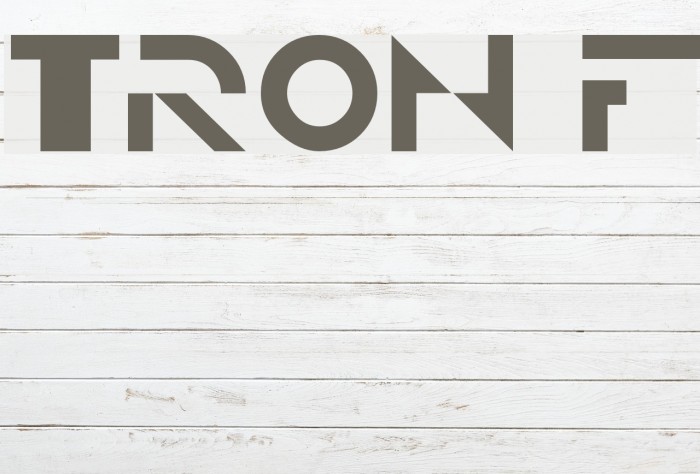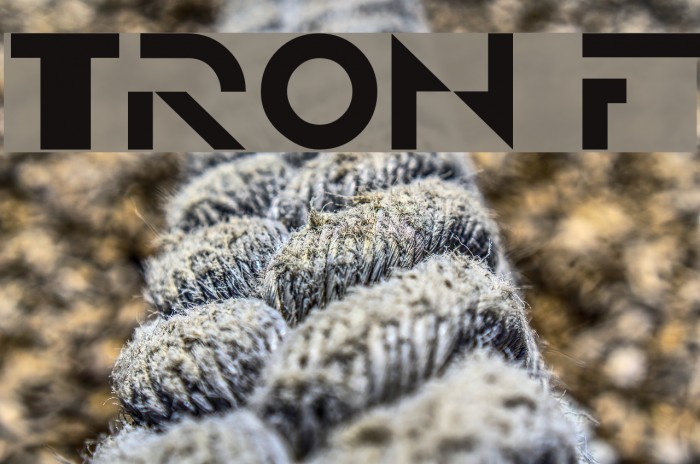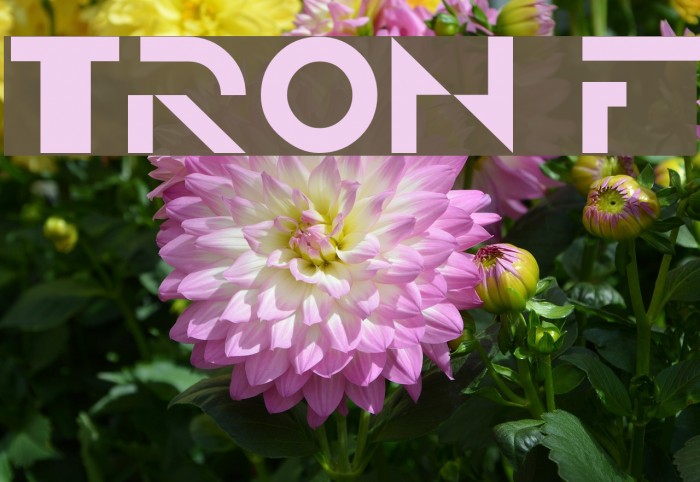
TRON Font
This font features a futuristic and geometric design, characterized by bold, angular shapes and a distinct sci-fi aesthetic. The characters are constructed with sharp edges and cut-out sections, creating a dynamic and high-tech appearance. The uppercase and lowercase letters maintain a consistent style, with the numbers and special characters following the same design principles. This font is highly stylized, making it ideal for projects that require a modern and digital look.
A futuristic, geometric font with bold, angular shapes and a sci-fi aesthetic.
- Proposed Projects: Ideal for technology branding, video game titles, movie posters, and digital media projects.